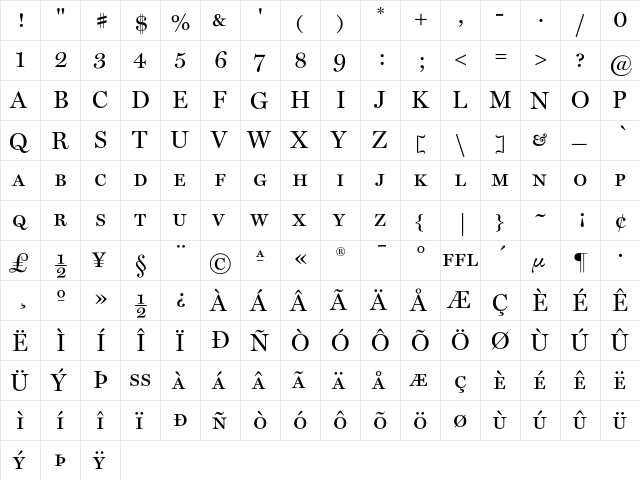
MillerDisplay RomanSC Font Preview
MillerDisplay RomanSC
Design Context for MillerDisplay Typeface
MillerDisplay brings ornamental detail and strong personality to headlines and identities, where visual impact matters more than quiet functionality.
Font Pairing: Pair with a clean neutral sans-serif for body copy to let MillerDisplay's character lead without overwhelming the composition.
Pro Tip: Use MillerDisplay exclusively at display sizes — it was designed to be seen, not read at length. Let a neutral companion handle body copy.